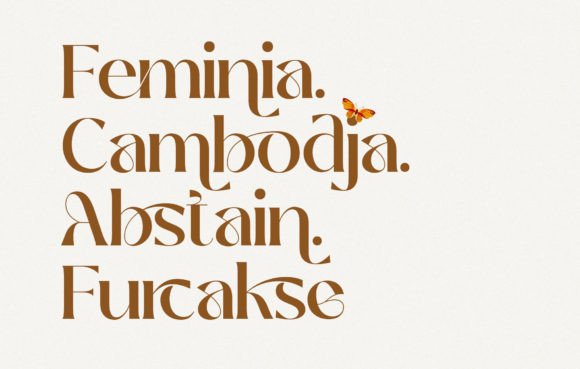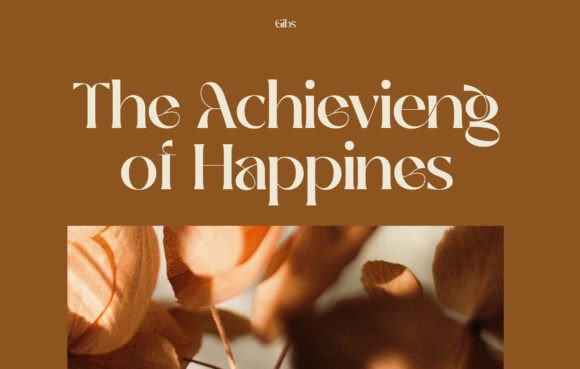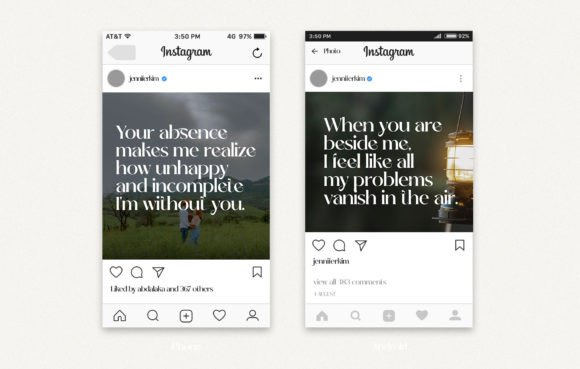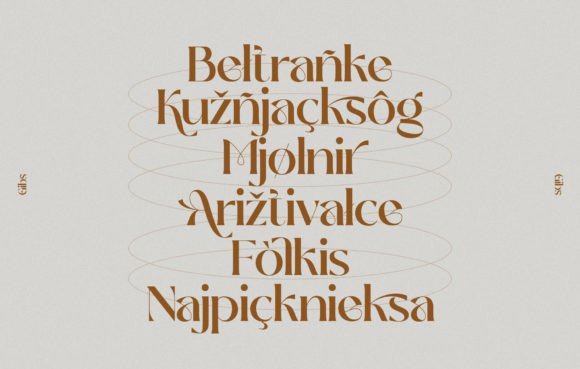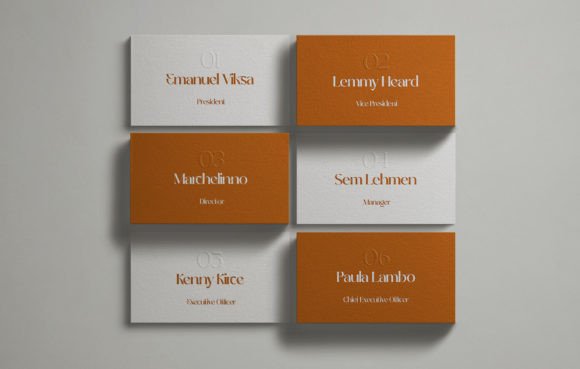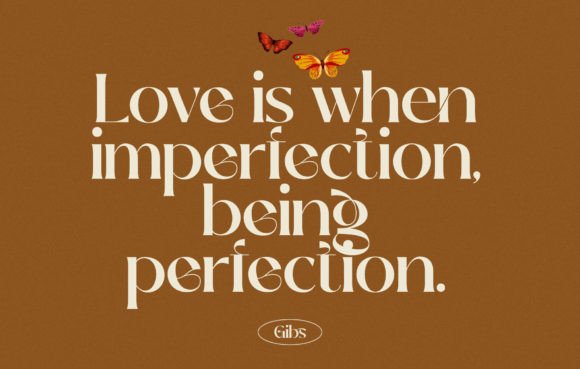
Gibs Font: Elevate Your Designs with Timeless Elegance
In the world of typography, fonts play a crucial role in conveying the tone and personality of a brand or design. For those seeking a typeface that exudes classic sophistication and modern refinement, Gibs Font is an excellent choice. This stylish serif font seamlessly blends traditional elegance with contemporary flair, making it perfect for a wide range of applications, from branding and editorial work to luxury designs.
The Characteristics of Gibs Font
Gibs Font is distinguished by its refined serifs and well-proportioned letterforms, which contribute to its classic yet modern aesthetic. The serifs, with their subtle flair, add a touch of sophistication, while the letterforms are designed to ensure excellent readability and versatility. This balance of form and function makes Gibs Font suitable for both print and digital media.
Applications of Gibs Font
The versatility of Gibs Font is one of its most compelling attributes. Here are some of the key areas where this font truly shines:
- Branding: For businesses looking to establish a luxurious and prestigious image, Gibs Font is an ideal choice. Its elegant appearance can elevate a brand’s visual identity, making it more memorable and impactful.
- Editorial Work: Whether you’re working on a magazine, journal, or any other form of editorial content, Gibs Font can add a layer of sophistication and professionalism. Its readability and aesthetic appeal make it perfect for body text and headlines alike.
- Luxury Designs: For high-end projects, such as luxury packaging, advertising, and marketing materials, Gibs Font brings a sense of opulence and refinement. Its classic undertones ensure that the design remains timeless, avoiding the fleeting nature of trendy typefaces.
Why Choose Gibs Font?
Choosing a font for a project can be a daunting task, given the numerous options available. However, Gibs Font stands out for several reasons:
- Timeless Beauty: Unlike fonts that follow fleeting trends, Gibs Font offers a timeless quality that ensures your designs remain relevant and elegant over time.
- Versatility: Its adaptability across various mediums and applications makes Gibs Font a valuable addition to any designer’s toolkit.
- Elegance and Sophistication: Gibs Font brings an undeniable sense of class and sophistication to any project, enhancing its visual appeal and impact.
Tips for Using Gibs Font Effectively
To maximize the potential of Gibs Font, consider the following tips:
- Pairing: Experiment with font pairings to find the perfect complement to Gibs Font. A sans-serif font for body text can create a striking contrast.
- Hierarchy: Utilize different weights and sizes of Gibs Font to establish a clear visual hierarchy, ensuring that your design communicates effectively.
- Color: Choose colors that align with the luxury and elegance of Gibs Font. Neutral palettes can enhance its sophisticated feel, while bold colors can add a modern twist.
Gibs Font is a stylish serif typeface that brings a perfect blend of classic elegance and modern sophistication to any design project. Its refined serifs, well-proportioned letterforms, and versatile nature make it an excellent choice for designers and crafters looking to add a touch of timeless beauty and grace to their work. Whether you’re creating branding materials, editorial content, or luxury designs, Gibs Font is sure to elevate your project with its touch of class and sophistication.